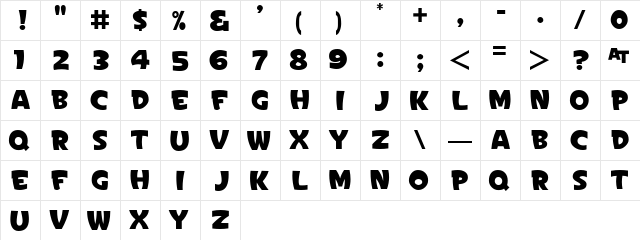
Sign Painter's Gothic JL Regular
| Foundry | Jeff's Fonts & Dingbats |
| Designer | Jeffrey N. Levine |
Design Context for Sign Painter's Gothic JL Typeface
Sign Painter's Gothic JL has the quiet confidence of well-executed sans-serif typography: versatile, unobtrusive, and dependable at any size.
Font Pairing: Works well alongside a characterful serif or display font that can carry the expressive load while Sign Painter's Gothic JL handles the functional copy.
Pro Tip: Use Sign Painter's Gothic JL for UI labels, navigation, and short-form body copy where clean legibility is the priority.